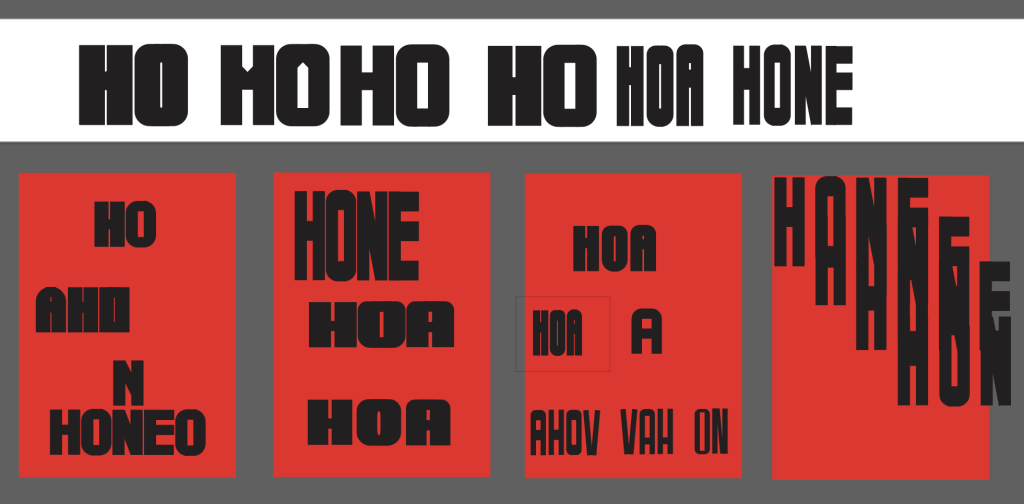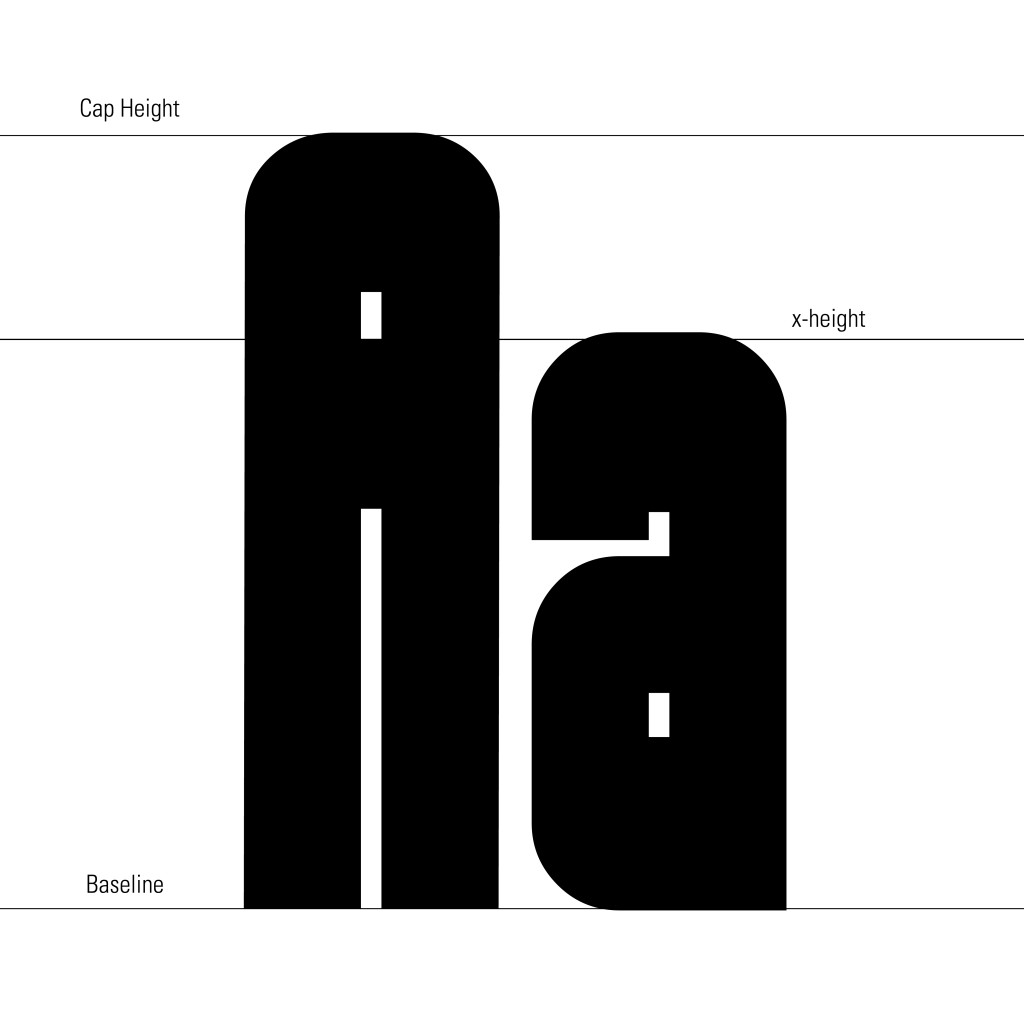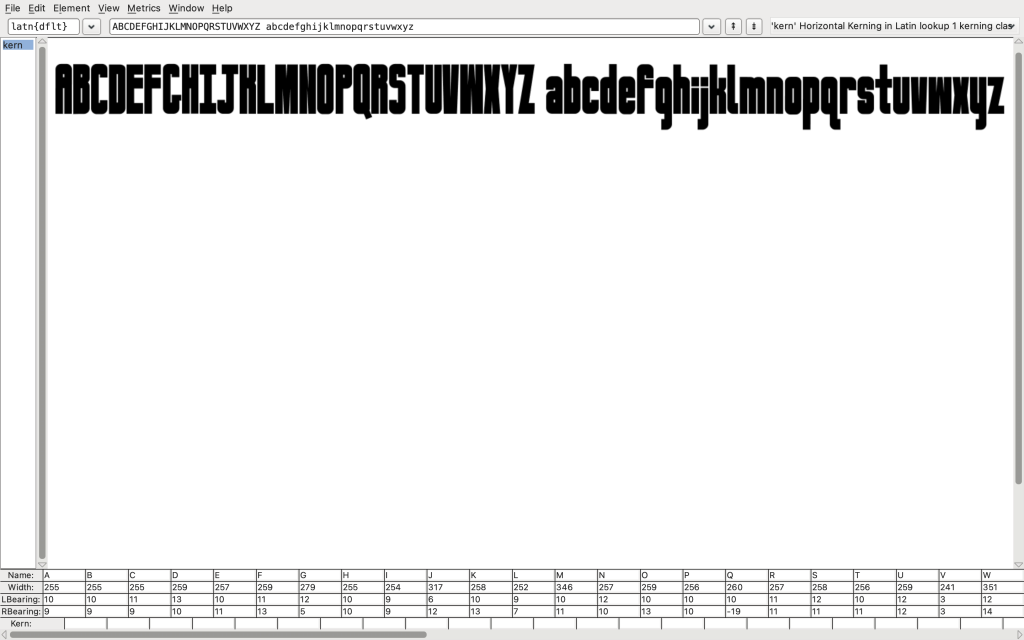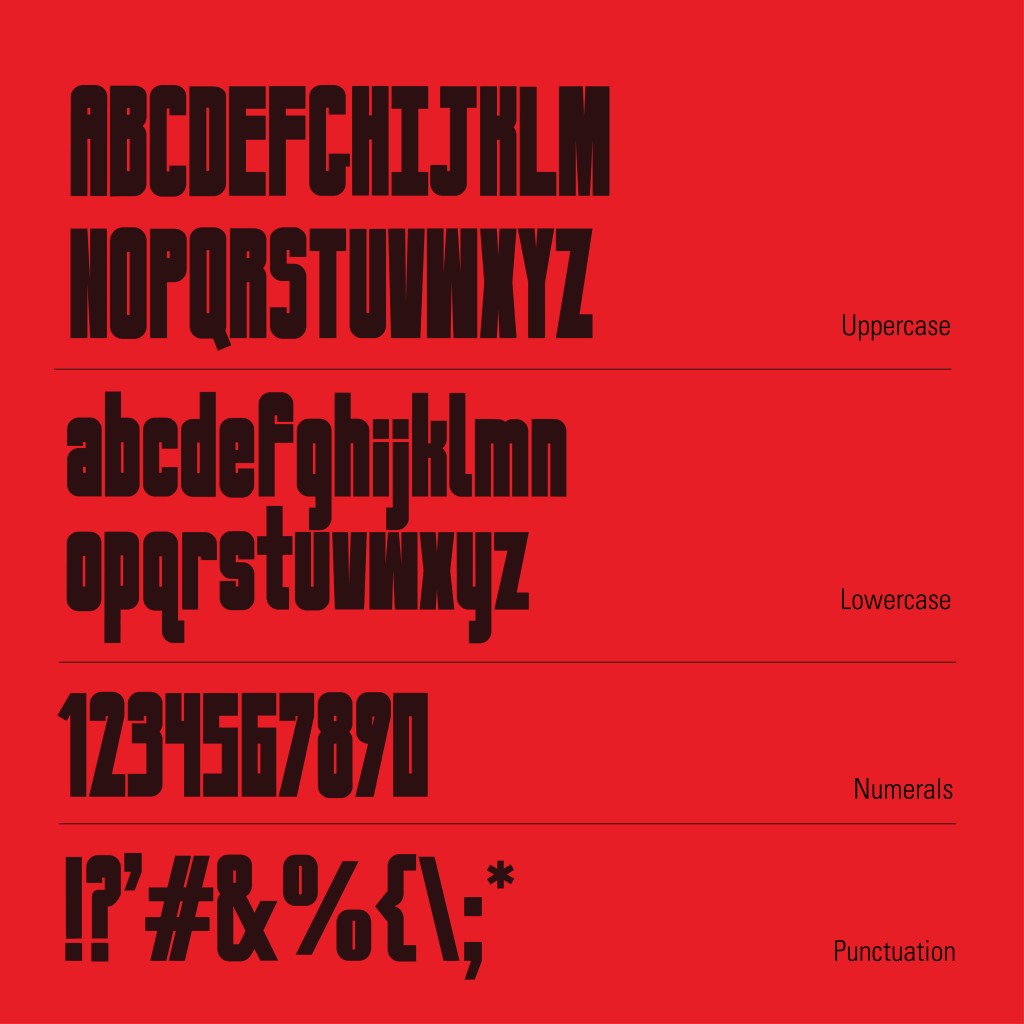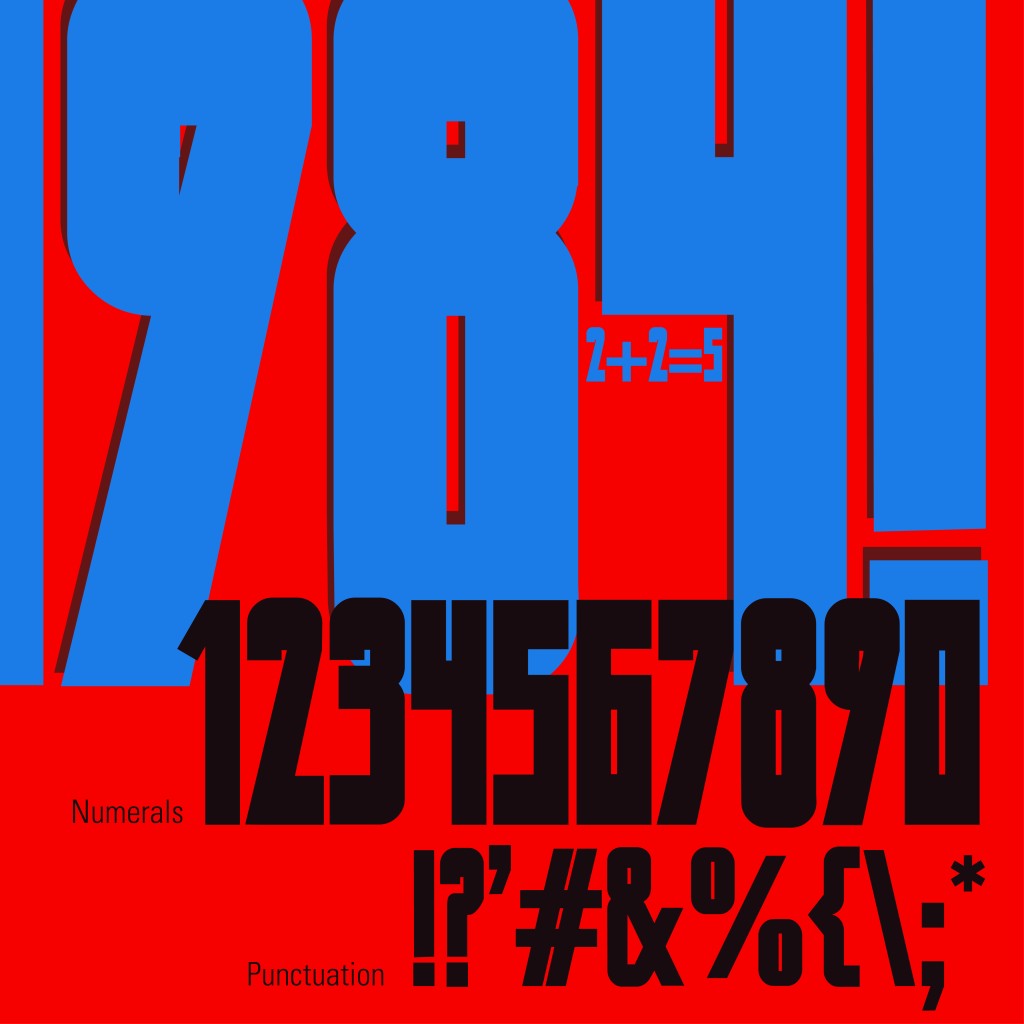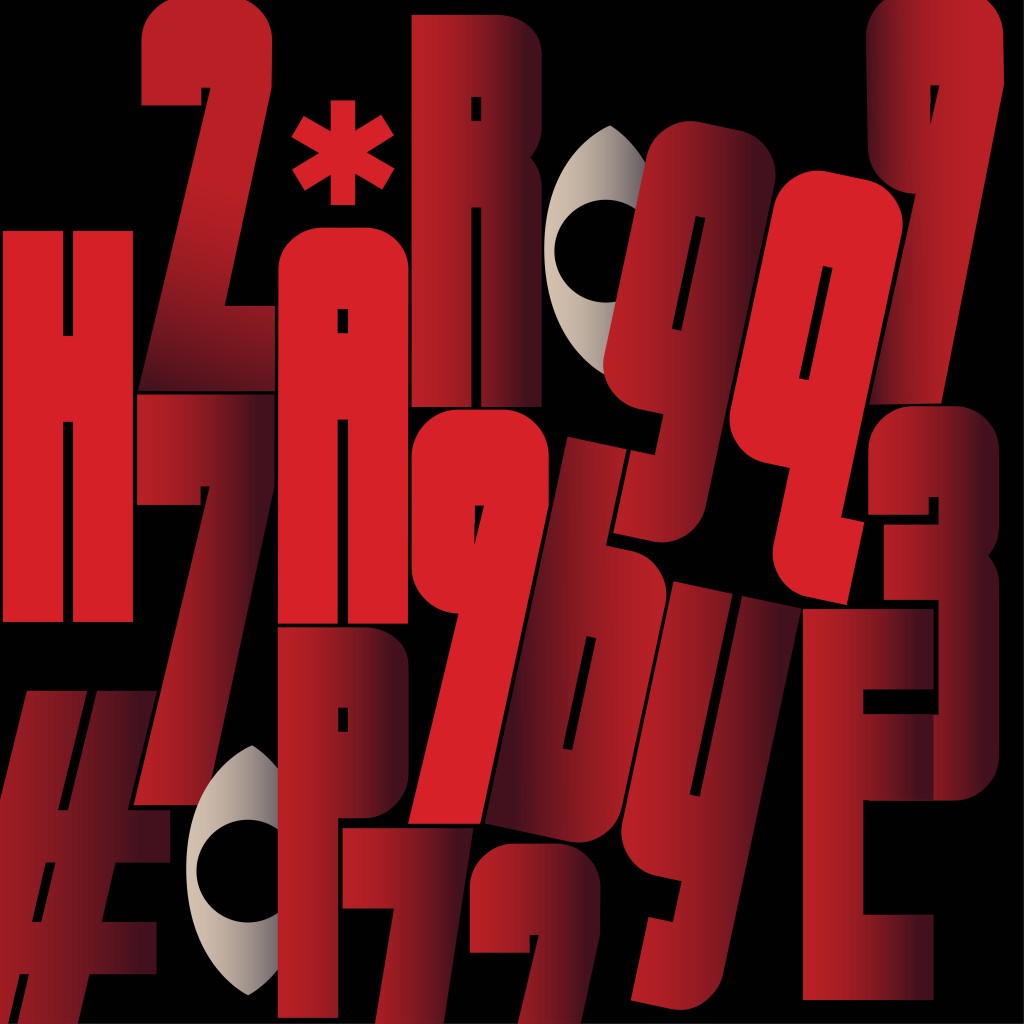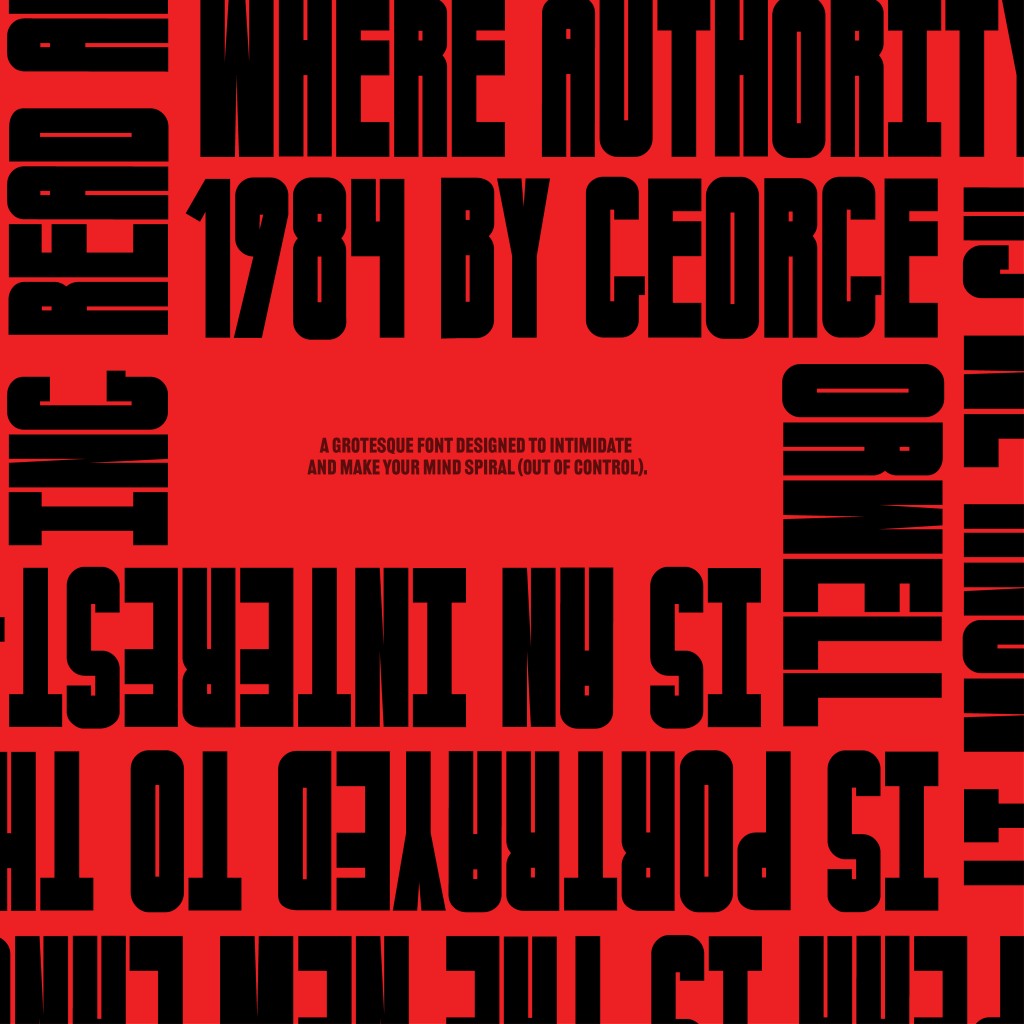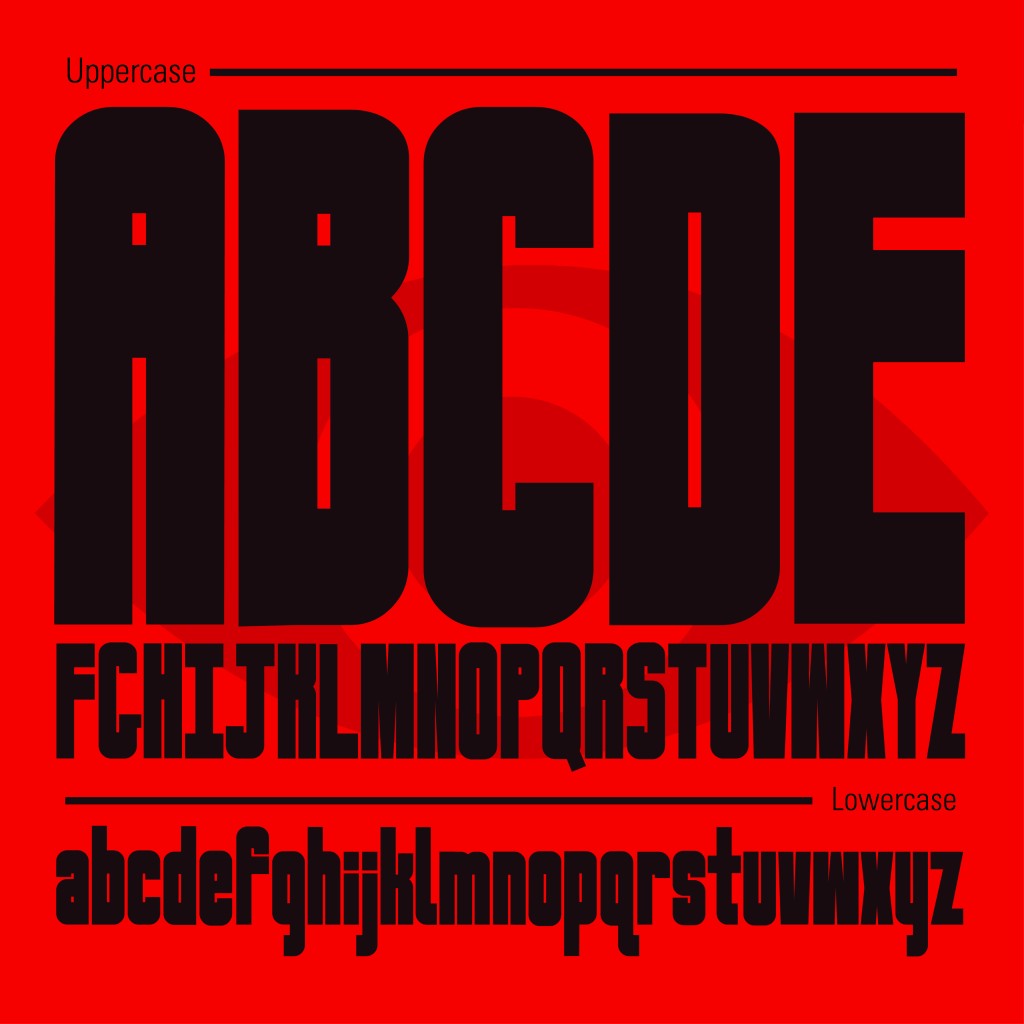
The visual language of power and authority can be found everywhere—from influential figures and political ideologies to monumental architecture and visual propaganda. There are countless forms of communication and cultural expression capable of making us perceive power and greatness; they can make us admire, feel small, feel intimidated, and ultimately become inclined to obey. But what is it about these forms that enables them to convey such power?
To answer that question, there isn’t one single definition of what makes something appear powerful or authoritative, as these ideas are shaped by individual experiences and cultural perspectives. However, from an objective point of view, observations of historical depictions of power and authority reveal recurring visual characteristics, such as an emphasis on size (big proportions/high elevation), compositional hierarchy featuring symmetry and a central focal point, and expensive / quality materials & colour depictions. (Mittman, 2019)
The Inspiration
My curiosity about visually expressing power grew through my interest in dystopian literature, particularly George Orwell’s 1984, where the whole idea and expression of totalitarianism in this book was something so unnerving and uncanny, and had such a great and jarring impact on me that I was in awe with how the story made me feel, discomforted and disquieted, and began to reflect on parallels between the story and our modern society – disturbing.
But when I looked back at the design of the book, it had seemed like a whole other story: something far more tame than what I had just read and experienced, and felt that the design didn’t do justice to the dystopian and oppressive nature of the story. That brought me back to the question, “what about certain forms that are able to convey such power?”.
The novel expressed the ability to control a nation unequivocally, and depicted a constructivist, totalitarian society that created an eerie, hopeless environment. To me, that is absolutely frightening, and the feeling the novel gave me was similar to looking at a communist propaganda poster; intimidated, uncomfortable, brutal, and built on false hope. This became the visual definition of power and authority for my project that I wanted to convey for my typeface, and drew inspiration from communist and constructivist design.
The edition I read featured a bright-red cover with a large eye in the middle, and a handwritten-like typeface used for the typography. To me, the most underwhelming and least-evocative design element on that cover was the text, and thus inspired me to design a typeface that visually communicates those same feelings of dominance and control that the story conveys, to ultimately redesign 1984’s book covers with the intention of building a stronger, more intimidating identity that reflects the very unsettling story within.
Designing ‘Newspeak’
After defining the direction of the design and expression, I decided to explore sans-serif and grotesque typeface styles to better capture the feelings of intimidation and power, influenced from communist propaganda designs and constructivism.
The design trials remained fairly simple and followed the same grid and construction. However, the real exploration lay in the weight and counter thickness, which I found to be the determining factors in whether the typeface would evoke the intended feeling. This was something I initially struggled to decide on my own, so with the help of Mr. Vinod, I moved towards a thin letterform with narrow counters.
Once I settled on the overall construction and weight, I completed the initial character set (only uppercase/unicase). One of the decisions I struggled with later on, was whether the typeface needed lowercase characters at all.
My initial intention was to create a typeface that would be used primarily in uppercase, as large-scale typography felt more appropriate for communicating authority. This was influenced by my earlier research into power, where size and scale repeatedly appeared as characteristics associated with dominance. However, since the typeface could technically support lowercase characters, I decided to develop them as well – why not.
As development progressed, the first lowercase forms did not feel as successful as the uppercase characters and began to move away from the visual language I had established. I therefore made several adjustments influenced by Mr.Vinod’s feedback to bring them back into the same style.
After completing the character set, I moved the typeface into FontForge, where I refined the technical aspects of the typeface. I adjusted the sidebearings and kerning to control the relationships between individual characters, deliberately keeping the spacing relatively compact, creating a dense and compressed rhythm. Rather than allowing the letters to feel open, relaxed and comfortable, I wanted the close spacing to create a sense of tension and visual pressure.
The final result became “Newspeak”, named after the controlled language developed by the Party in the novel 1984. The name is, of course, a direct reference to the novel, and my interpretation of a typeface that could exist within its universe. It also reflects one of the story’s central ideas: that controlling language can become a means of controlling thought, reinforcing the relationship between language, power, and authority.
The End Goal
All in all, Newspeak, inspired by George Orwell’s 1984 and originally conceived as a response to book covers that, to me, lacked strong visual communication, is an interpretation of how power and authority can be visually expressed through typography, translating the feelings of intimidation, oppression, and discomfort that the novel evoked in me into a functional typeface. Ultimately, it should remind people of how daunting visual communication can really be, and to instill a sense of fear within oneself as they read and witness this typeface.